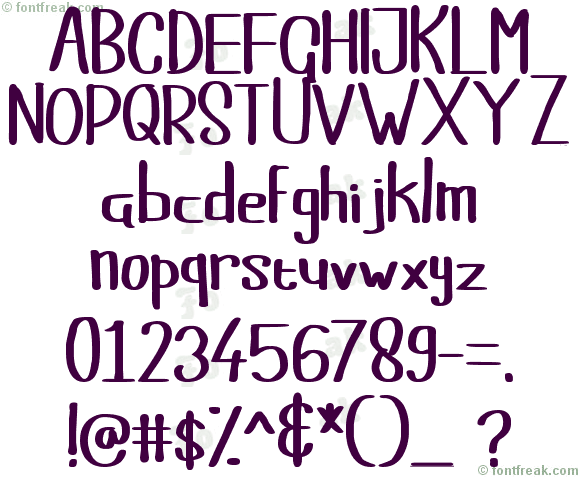
Bee-la
About Bee-la
The Bee-la font by Ihsan Hasanudin is a charming handwritten typeface that exudes personality and creativity. With its playful strokes and organic flow, this font stands out in the realm of decorative type. The design features a moderate stroke weight that provides a perfect balance between legibility and style, allowing it to shine in various applications. The contrast between thick and thin lines adds an inviting touch, while the spacious letterforms ensure clarity even at smaller sizes. Bee-la showcases unique decorative elements, such as whimsical curves and loops, that enhance its artistic flair.
This font is ideal for a variety of use cases, making it a versatile choice for designers and creators. It can elevate wedding invitations with its romantic and friendly appeal, making special occasions even more memorable. Additionally, Bee-la is perfect for crafting eye-catching movie posters, where its unique character can capture attention and convey a sense of fun. Restaurant menus can benefit from its inviting style, inviting diners to explore the culinary delights within. Small business owners can also use this font in branding materials, such as logos and promotional materials, to create a warm and approachable image.
Targeting graphic designers, small business owners, and content creators alike, the Bee-la font free download offers a valuable resource for those looking to infuse their projects with a touch of whimsy. Its distinctive style and versatility make it a standout choice for anyone seeking to add a personal and creative edge to their designs. The combination of playful characteristics and practical applications ensures that Bee-la will remain a favorite among designers looking to make their work truly unique.